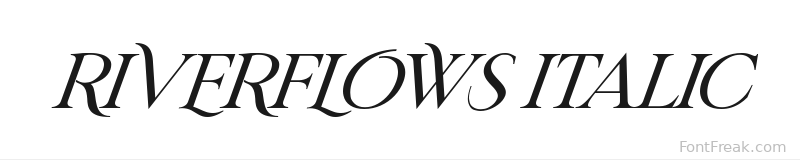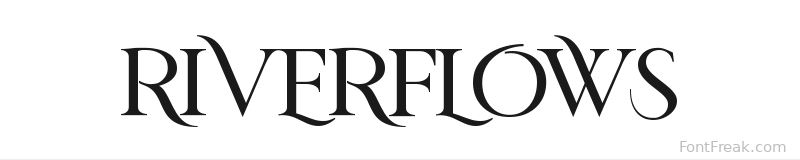
RIVERFLOWS
RIVERFLOWS Italic
RIVERFLOWS by Kong Font is a captivating serif typeface that seamlessly blends elegance and modernity. This font features a distinctive style characterized by its refined stroke weight and subtle contrast, creating an inviting and sophisticated appearance. The letters are generously spaced, enhancing readability while allowing for a graceful flow in design. Decorative elements are thoughtfully integrated into the letters, adding a touch of artistry that makes RIVERFLOWS stand out among its peers.
The versatility of the RIVERFLOWS font makes it suitable for a variety of creative applications. It is particularly well-suited for wedding invitations, where its elegant curves can evoke romance and charm. Additionally, it can elevate movie posters, providing a dramatic flair that captures attention. Restaurant menus will benefit from its sophisticated aesthetics, enticing customers with a visually appealing presentation of the culinary offerings. Furthermore, graphic designers can utilize RIVERFLOWS in branding projects, creating logos that resonate with contemporary audiences. Small business owners seeking an eye-catching typeface for marketing materials will find RIVERFLOWS an excellent choice.
What truly sets the RIVERFLOWS font apart is its ability to convey both elegance and modernity, making it a versatile choice for diverse design needs. The combination of classic serif elements with a contemporary twist ensures that it stands out in any context, making it a valuable asset for anyone looking to elevate their creative projects. For those interested, the RIVERFLOWS font free download is readily available, inviting designers to explore its potential.